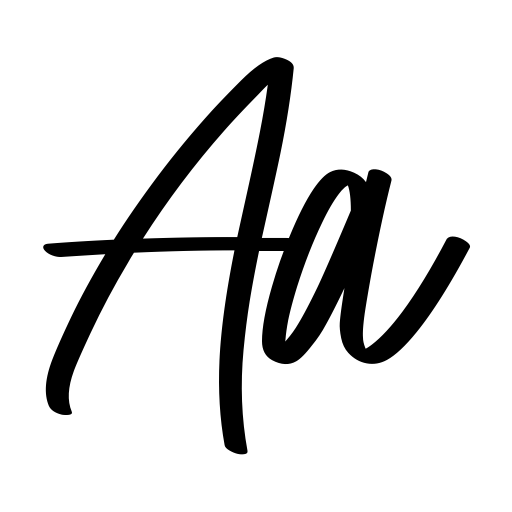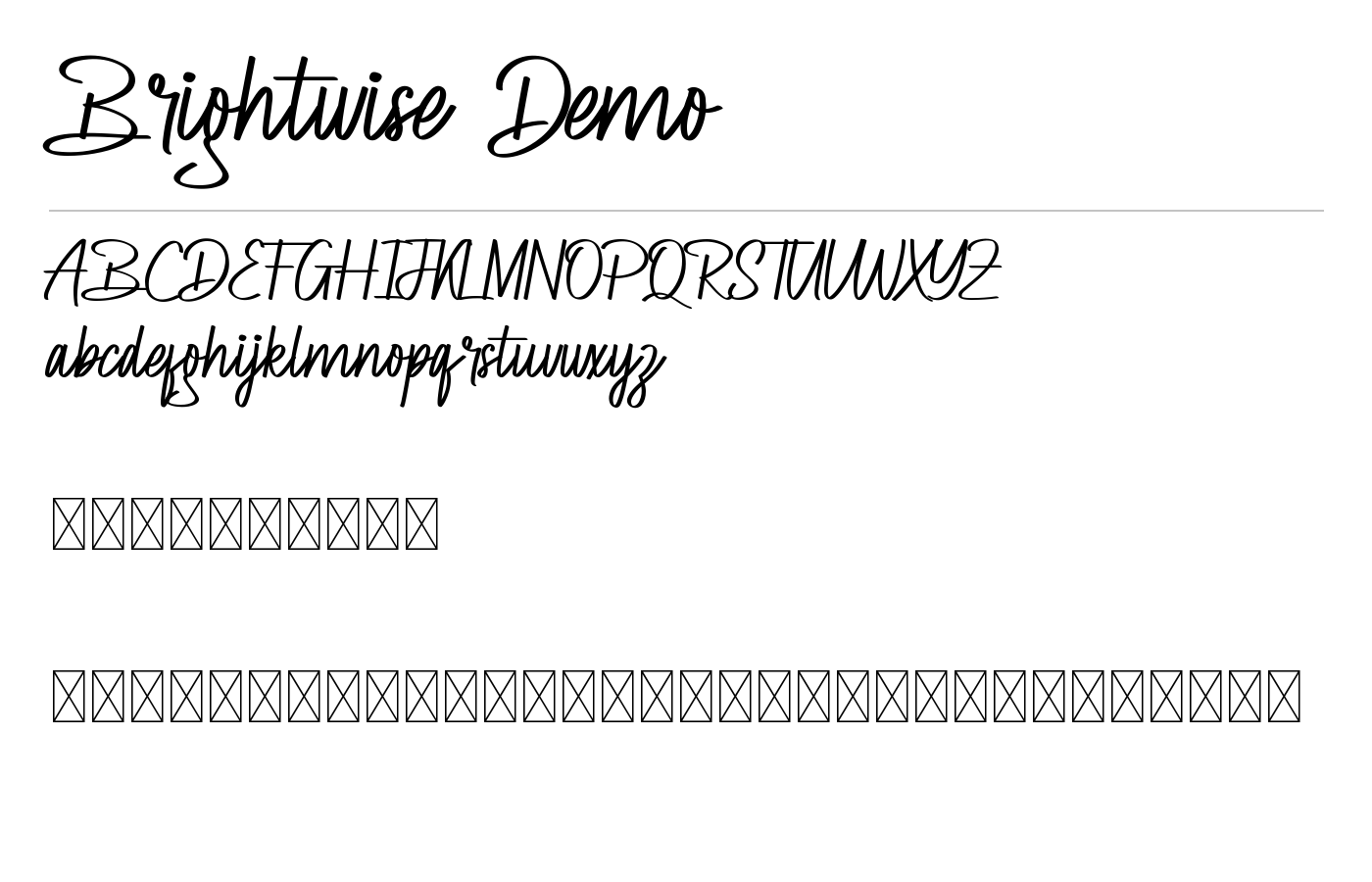
Brightwise Demo is a lively and elegant script font with a handwritten feel, featuring fluid, connected letterforms and varying stroke widths that give it a natural, artistic touch. It works beautifully for creative projects, invitations, branding, and headlines where a personal, stylish vibe is desired. This font’s refined yet approachable style makes it ideal for adding a warm and unique personality to your designs.
Brightwise Demo Font
About Brightwise Demo Font
| Font family | Brightwise Demo Font |